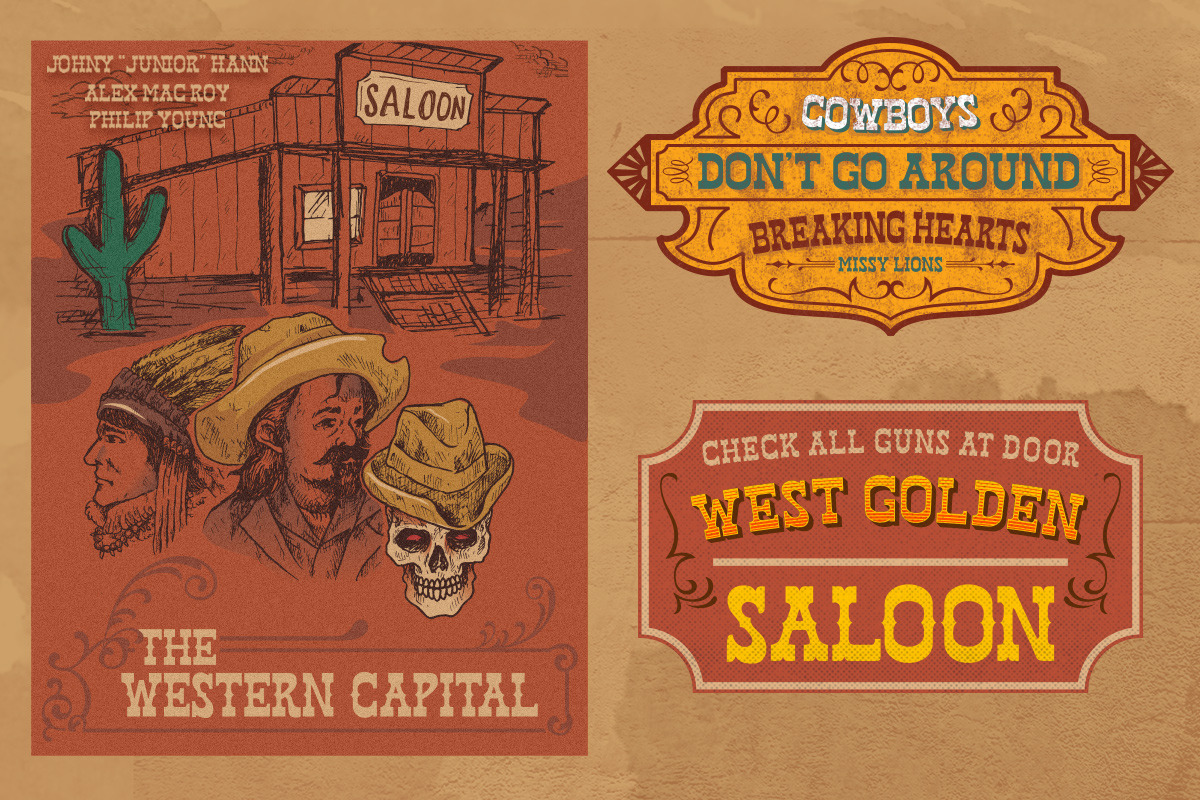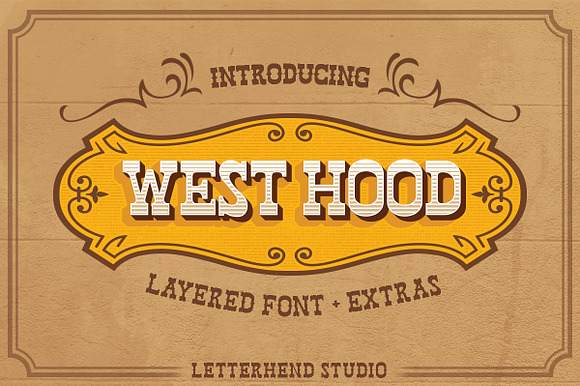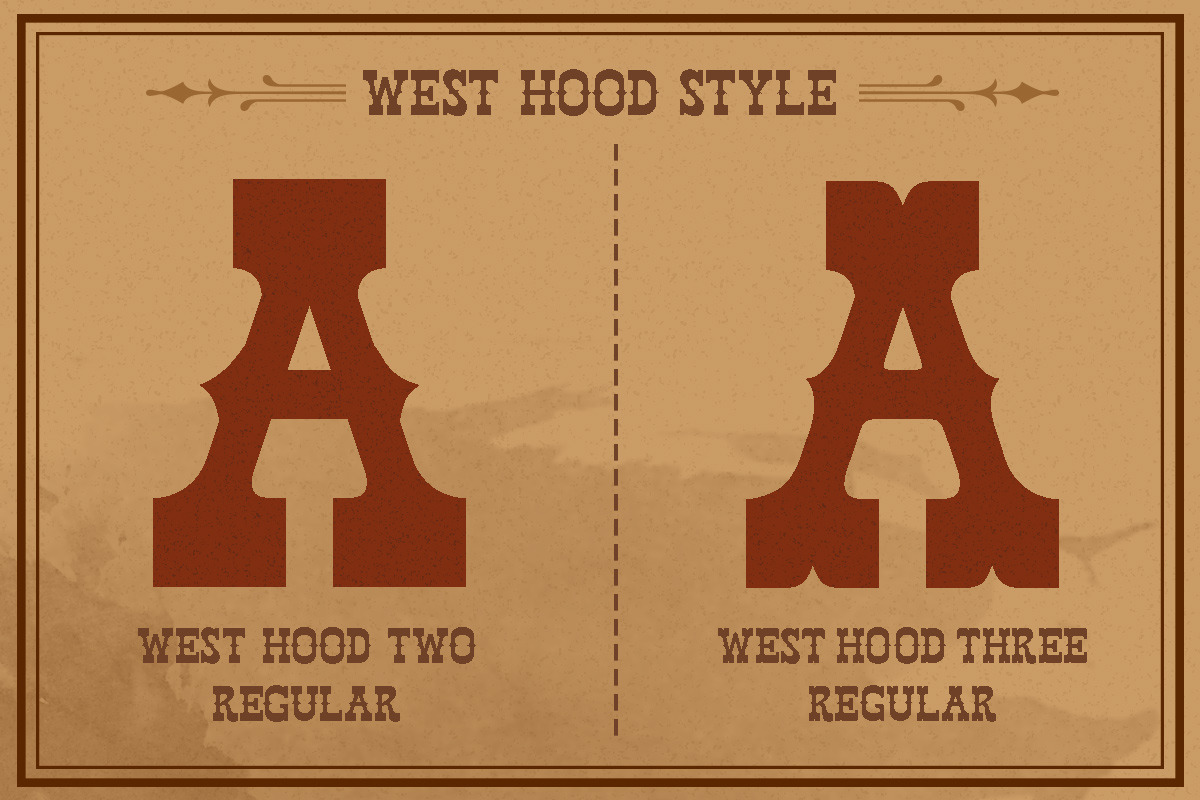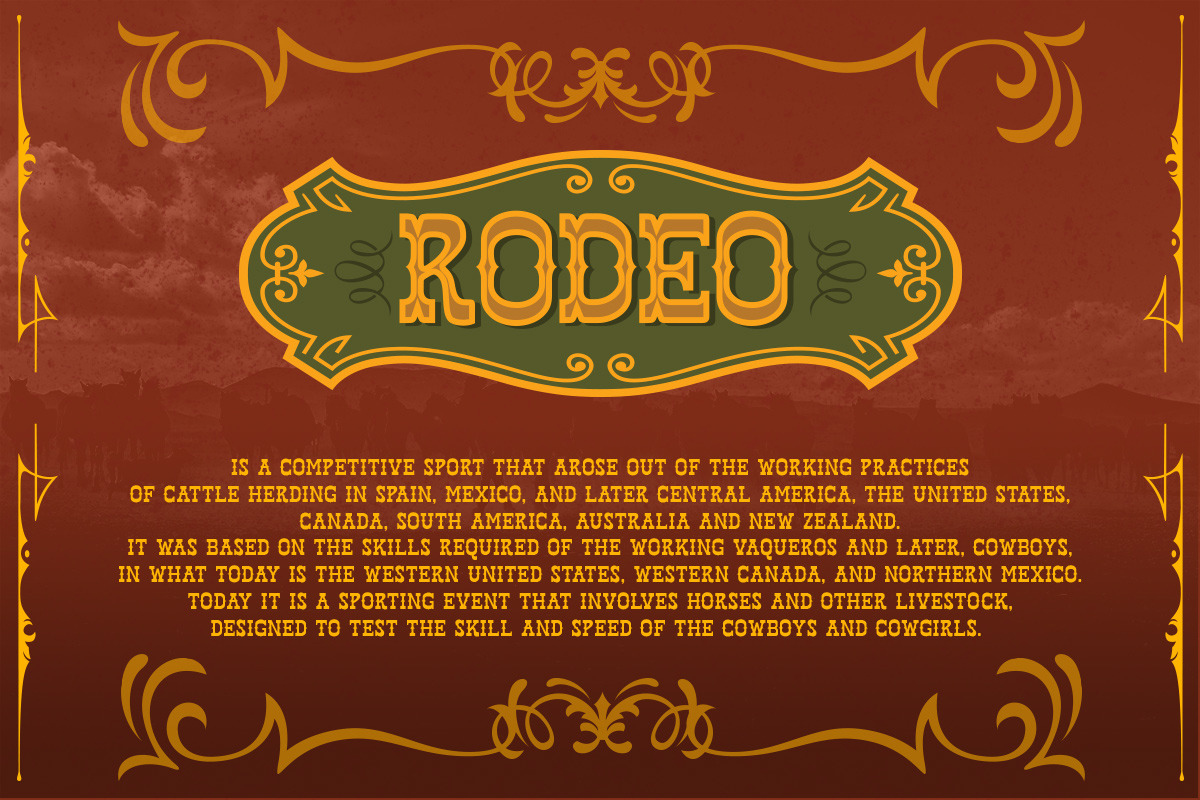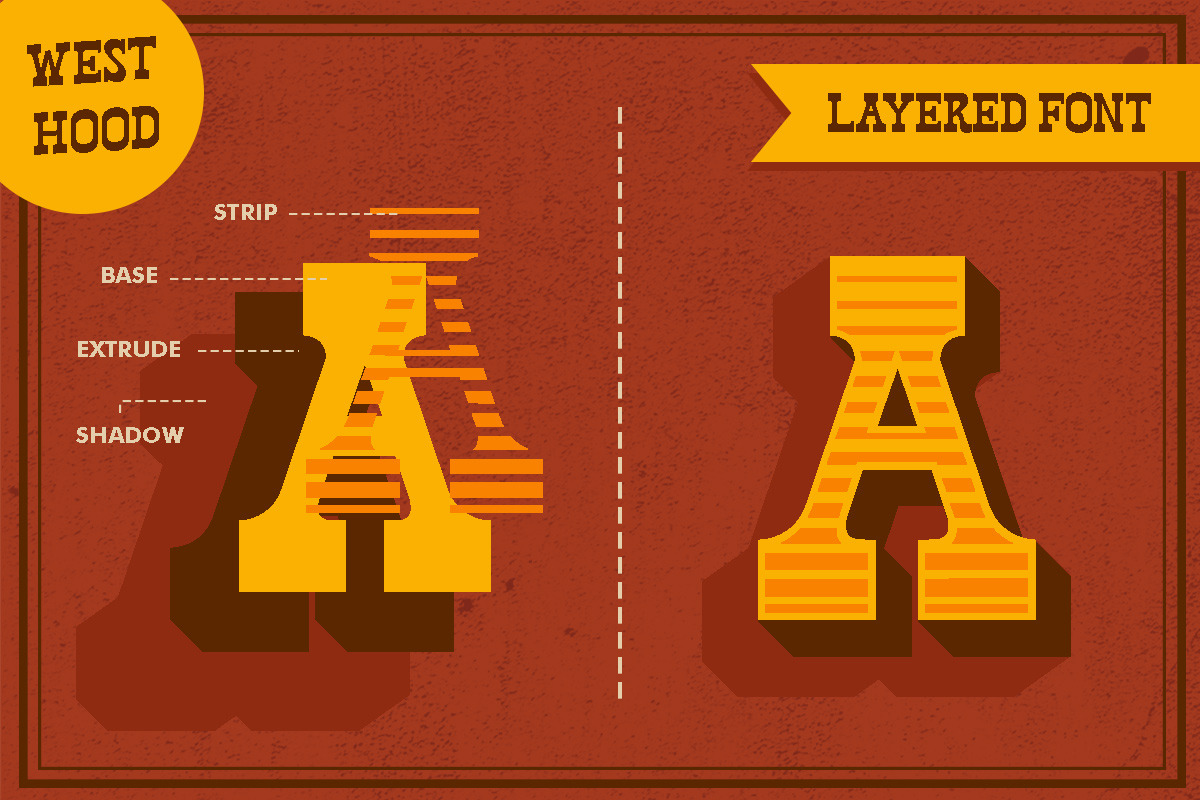
West Hood - 6 FONTS!
Introducing, West Hood! A Classic Wild West style font, ready to rock! This old fashioned font is really something since it has many styles. This item consist of 12 fonts in various styles which you can play around with it. Suitable for design needs with a touch of classic western. In this product you will get :
West Hood - 6 FONTS! by Letterhend Studio fits naturally into Branding, posters, packaging, typography.